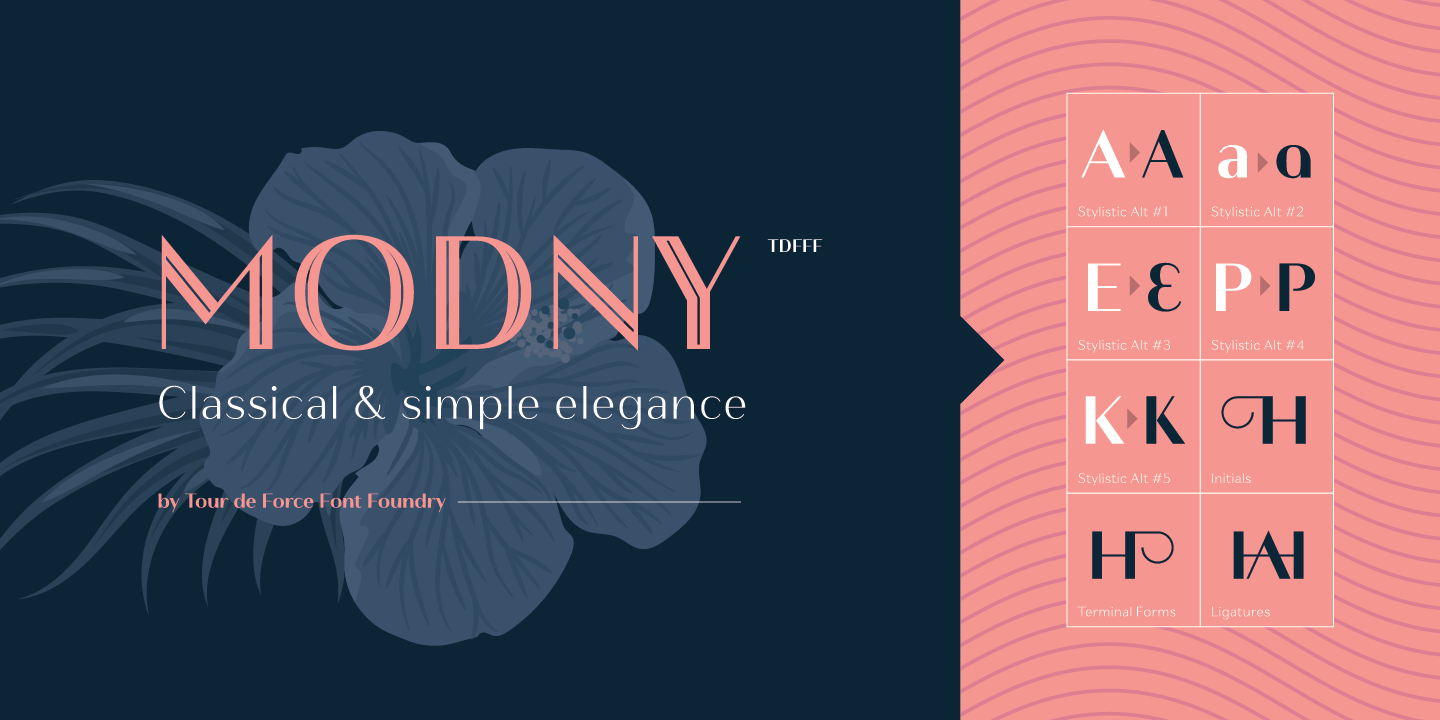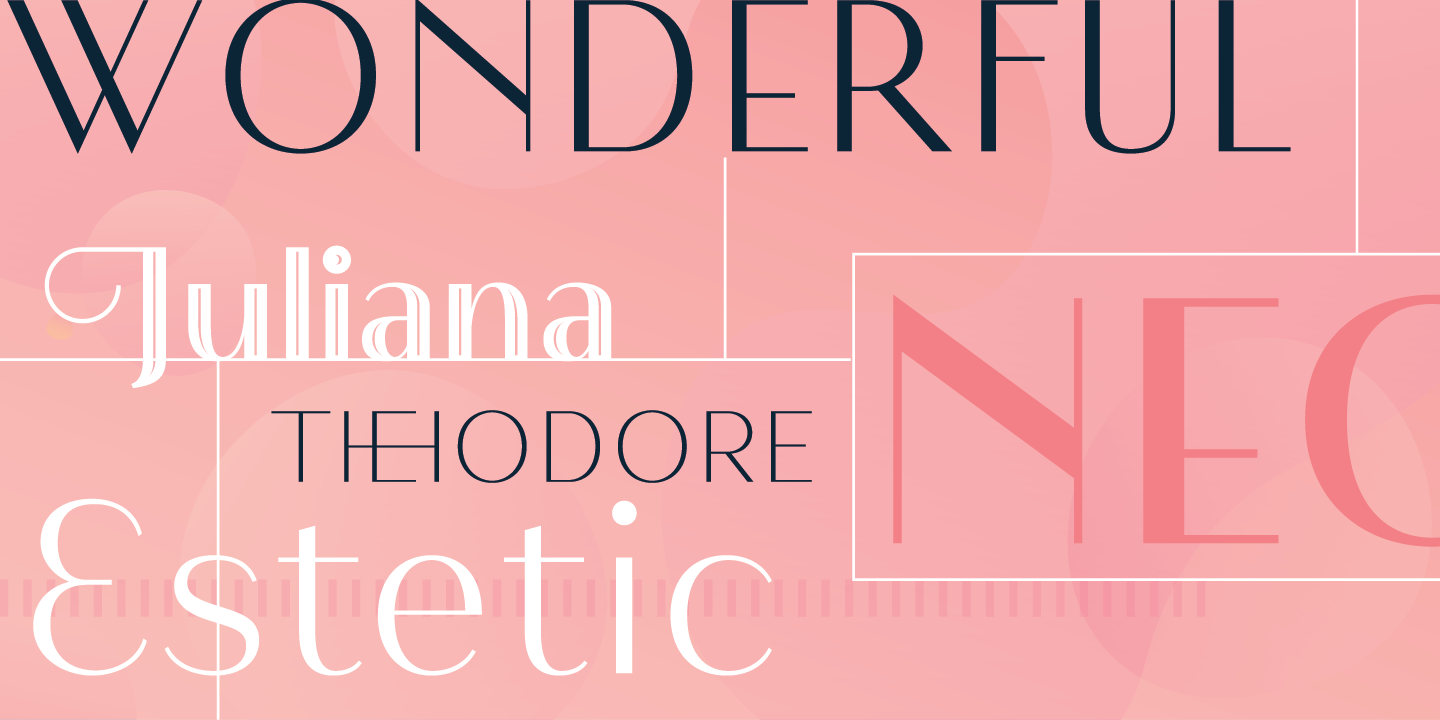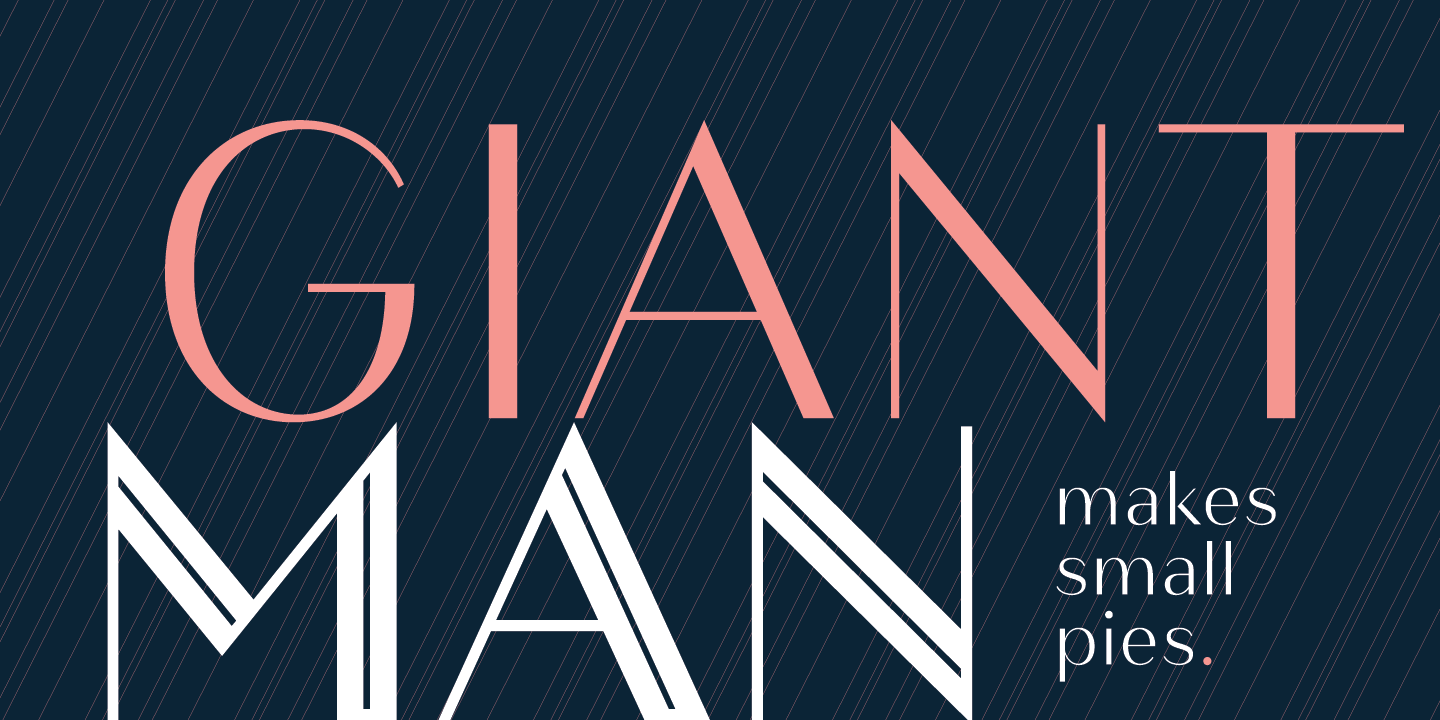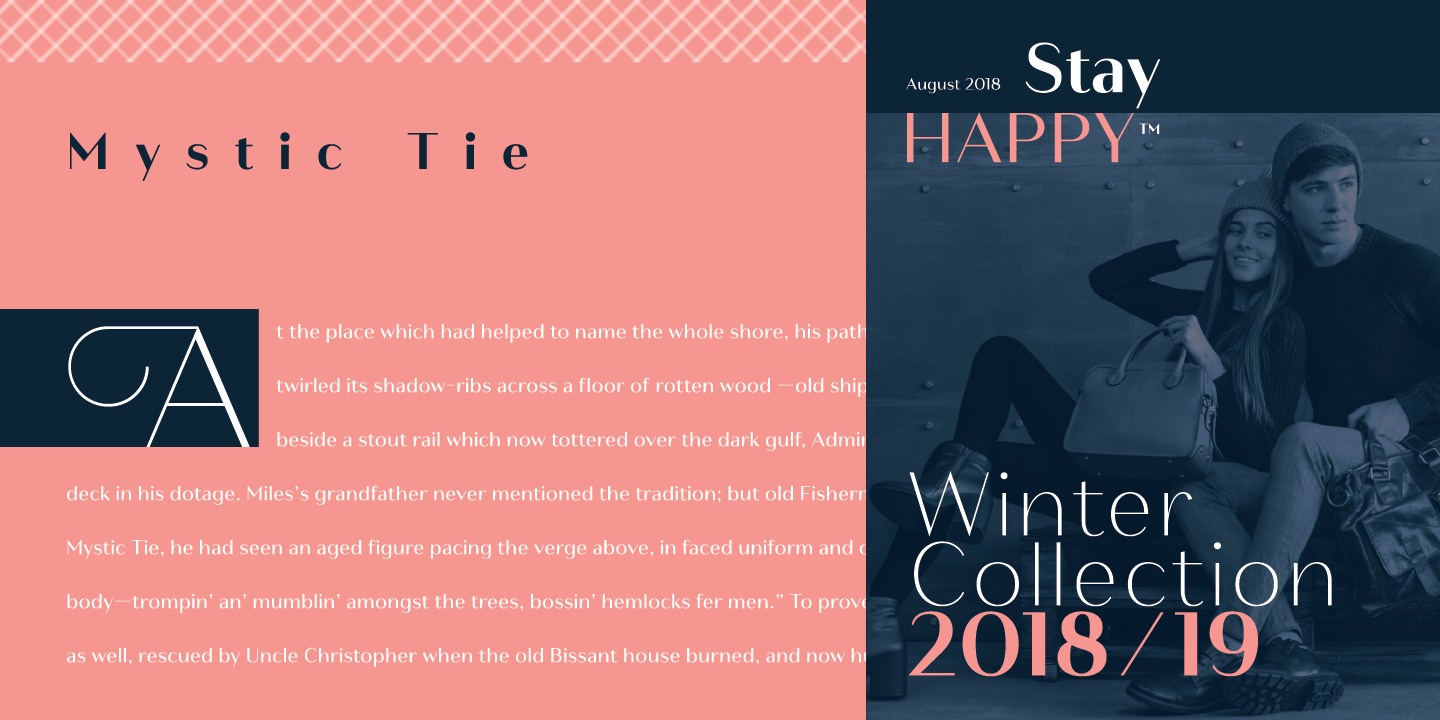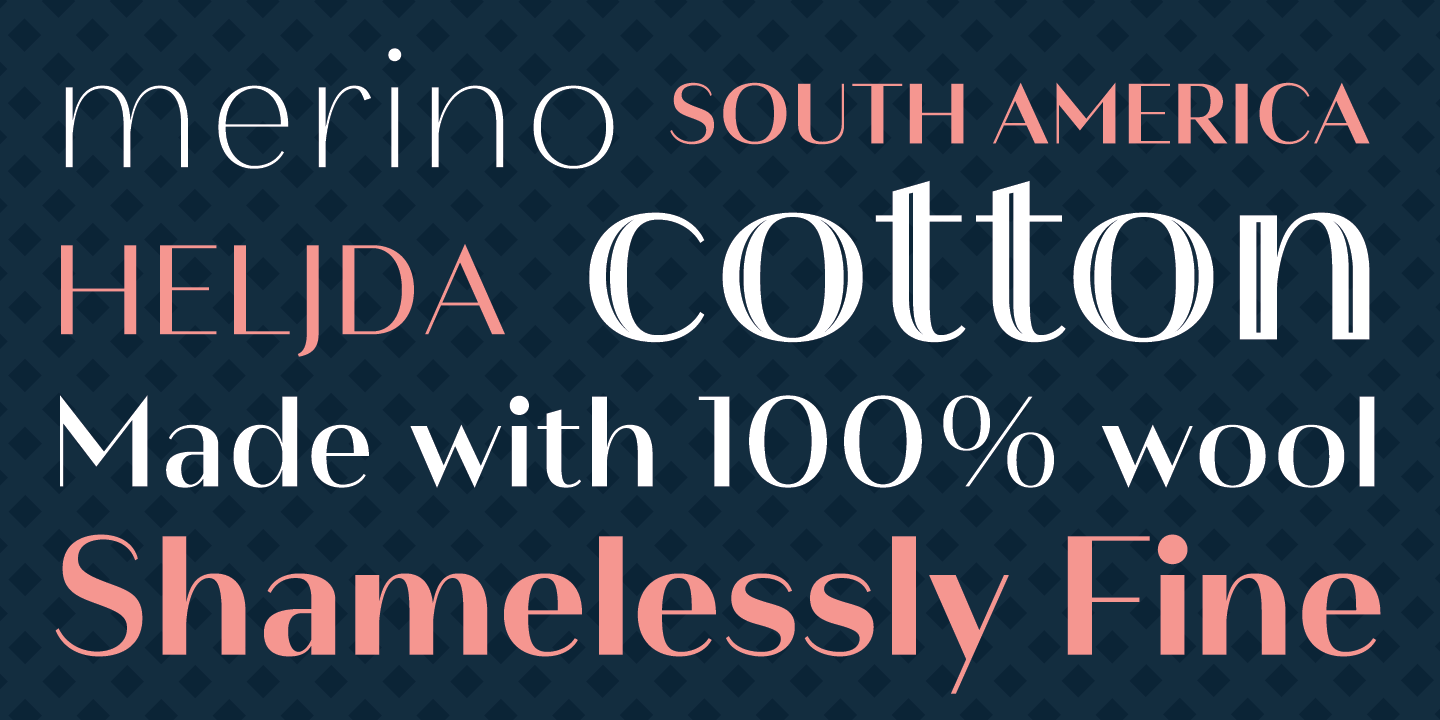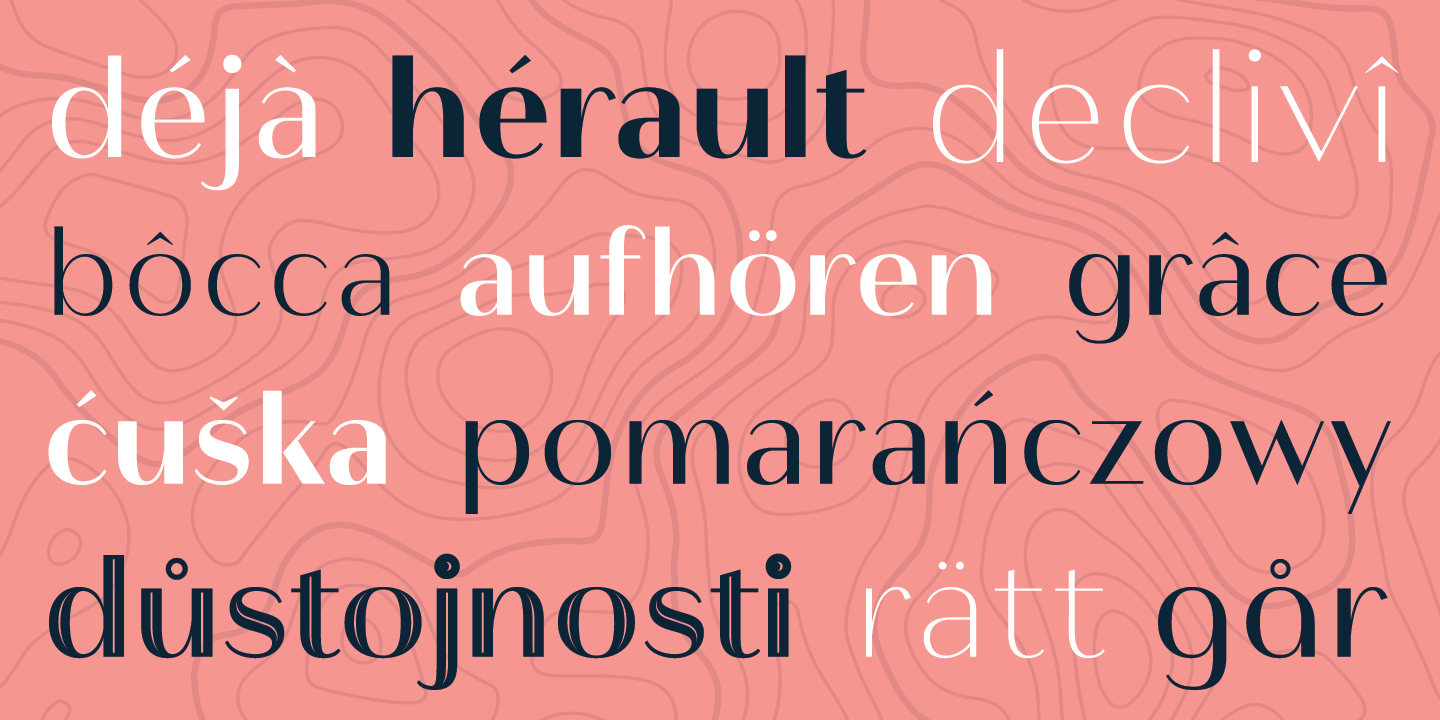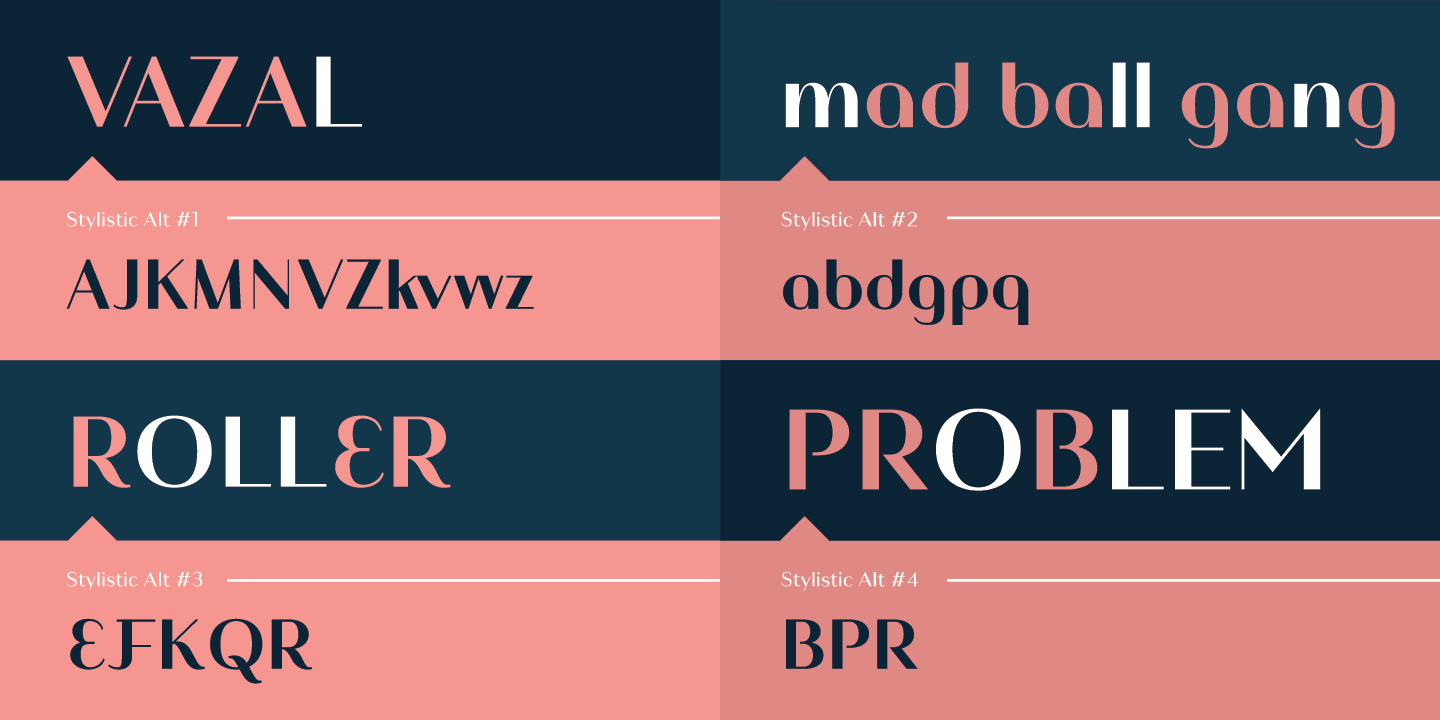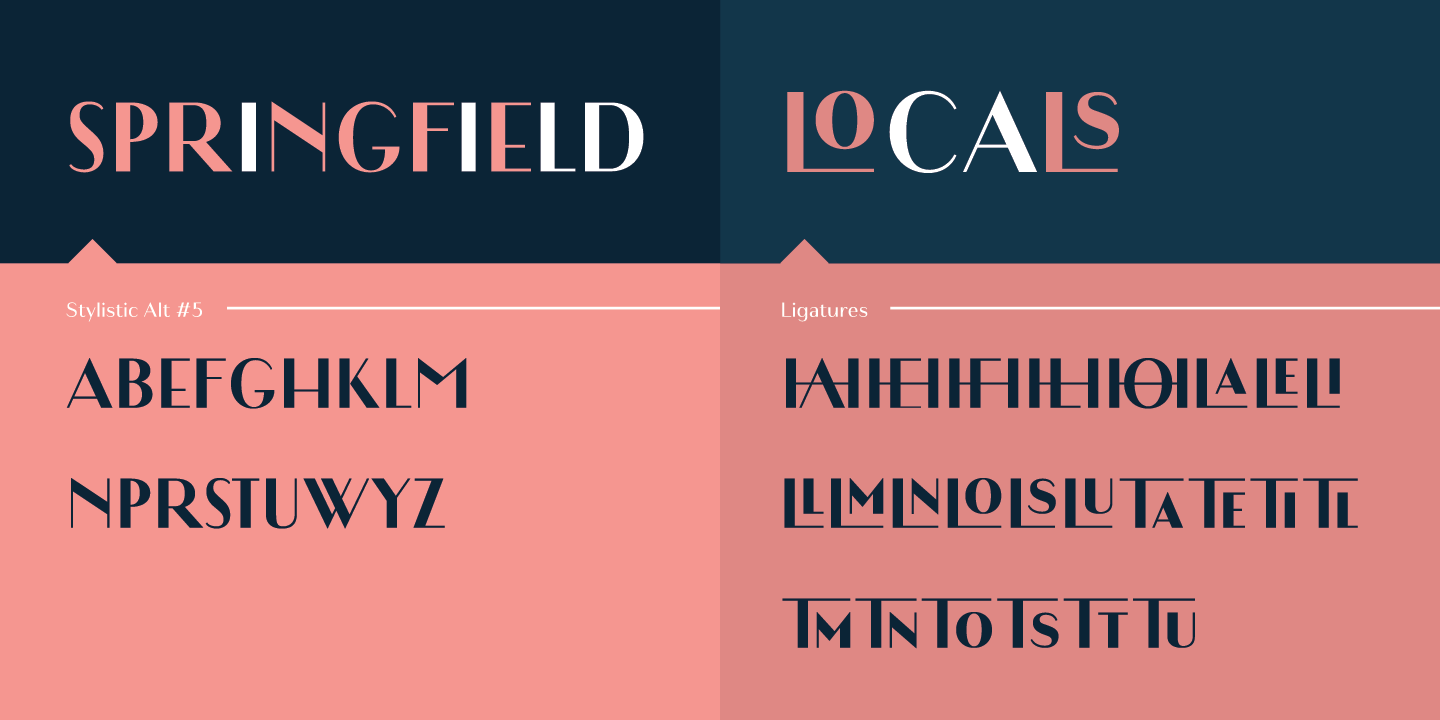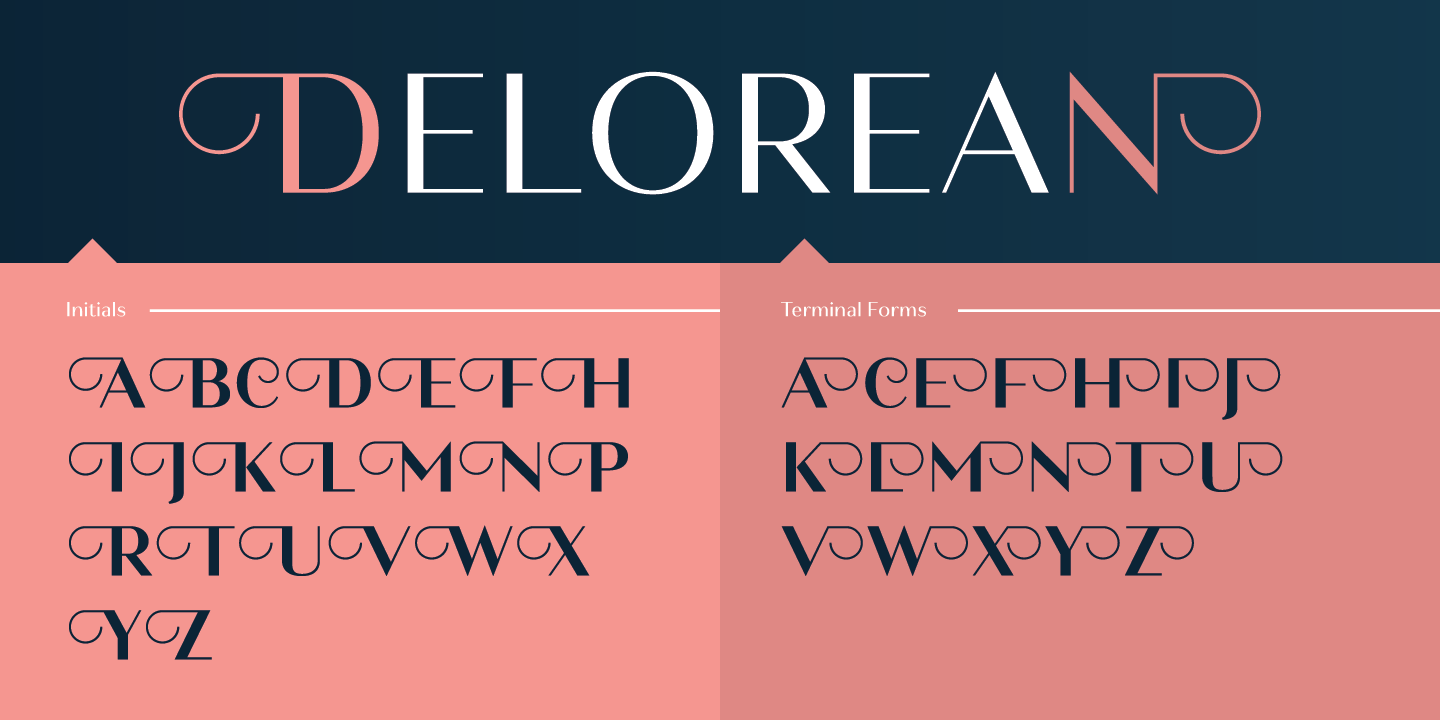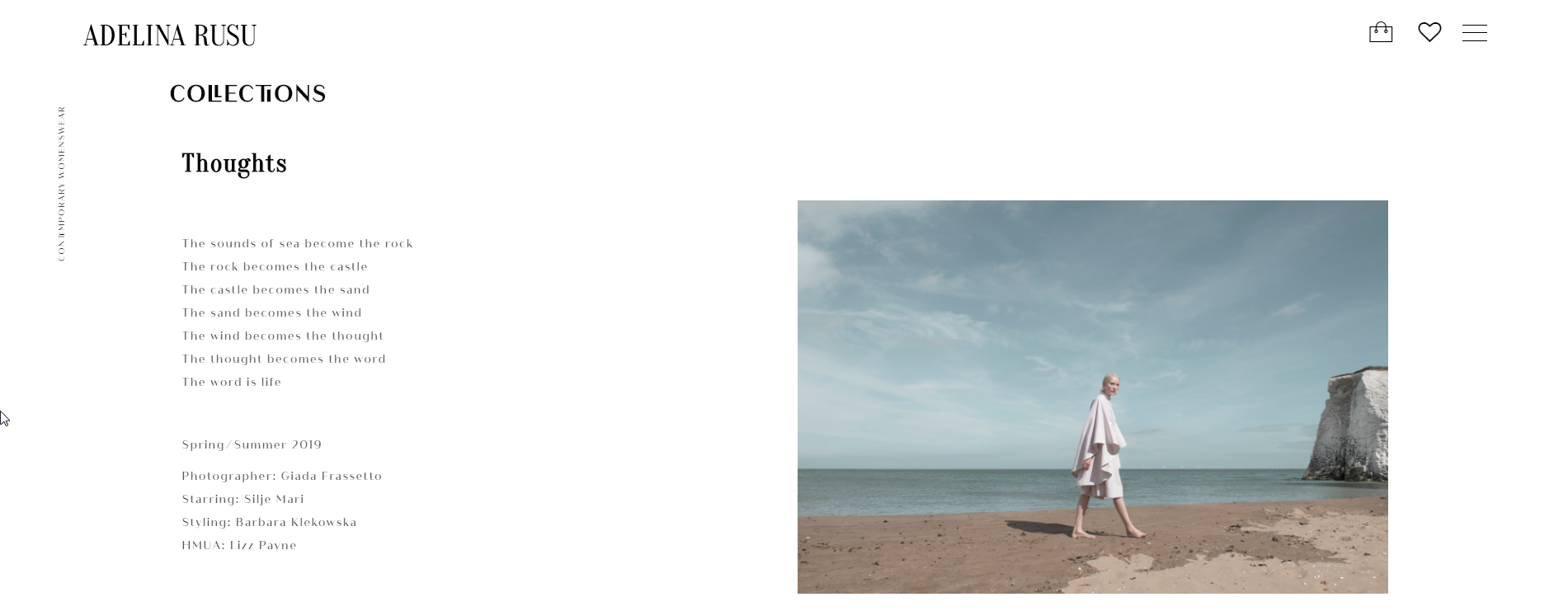
Modny is a simple and elegant sans serif family with high contrast strokes.
By its characteristics, Modny is gentle, smooth and geometric at the same time, neutral to blend into every project. Comes in five weights with tall x-height, file stylistic sets, bunch of ligatures, initials and terminal forms, containing more than 600 glyphs for all Latin languages support.
Special addition is an Inline version made out from Bold weight, to increase the effect of decorative elements in each letter.